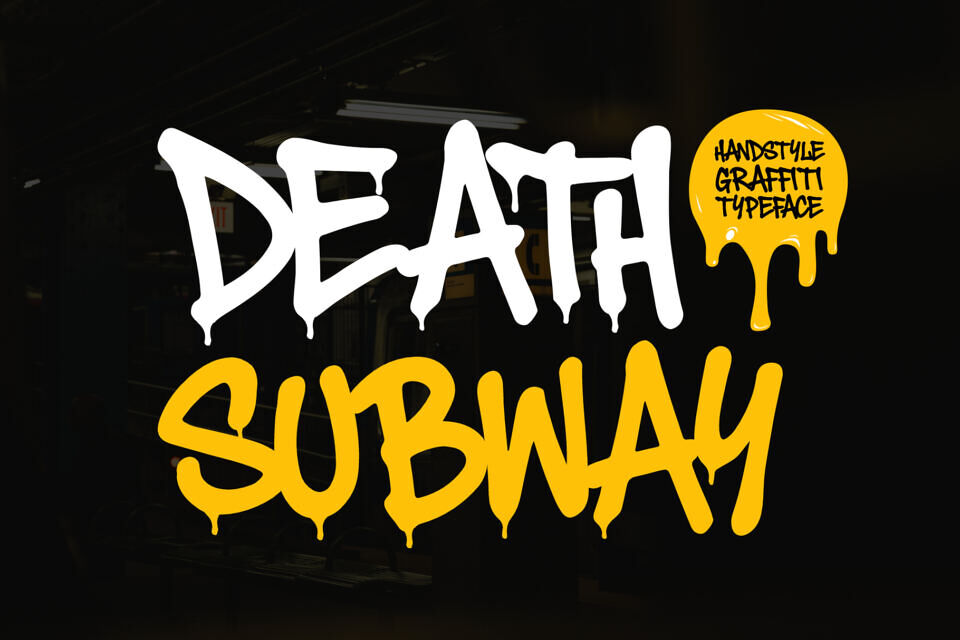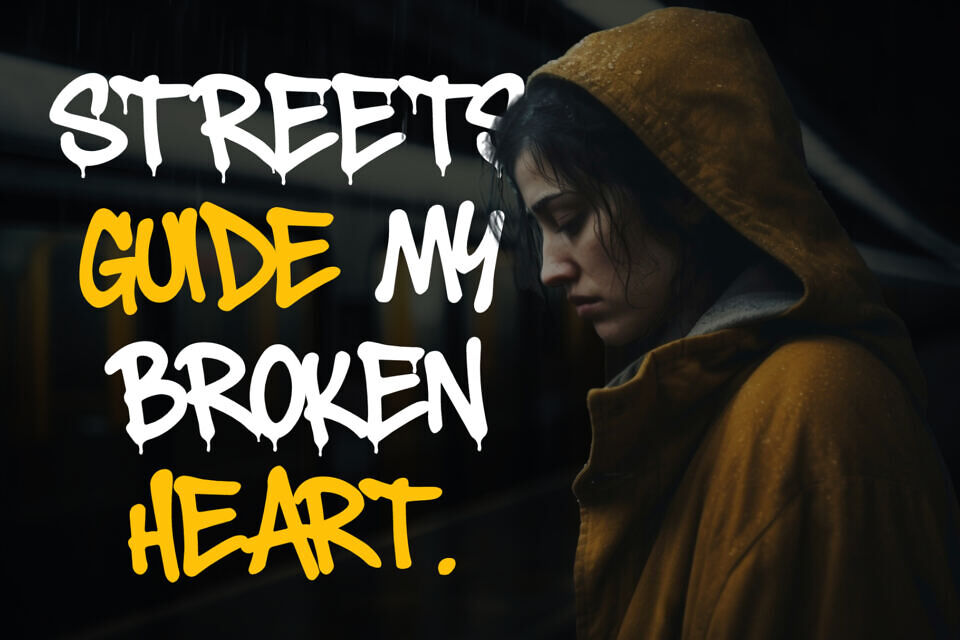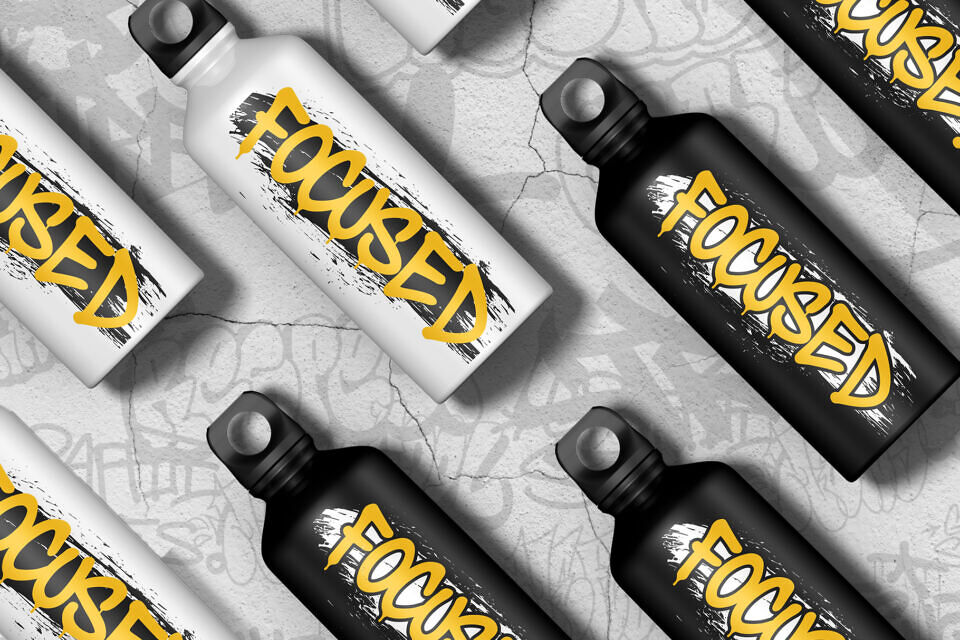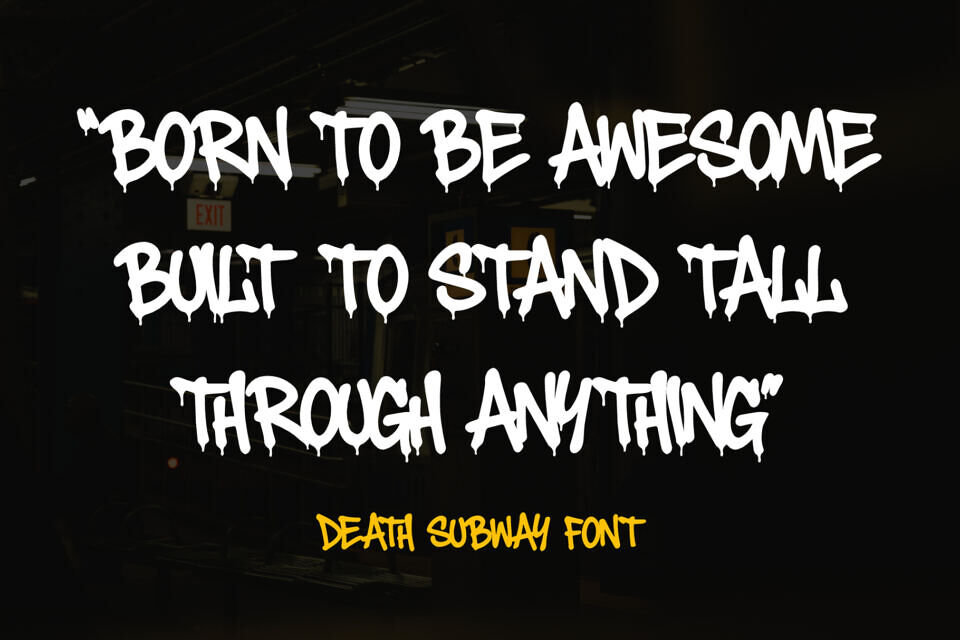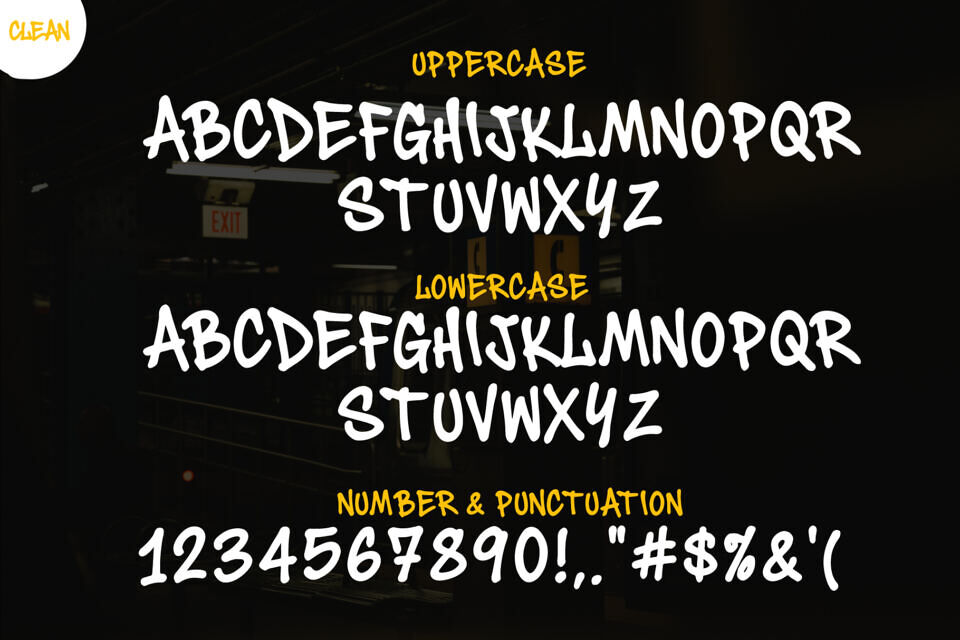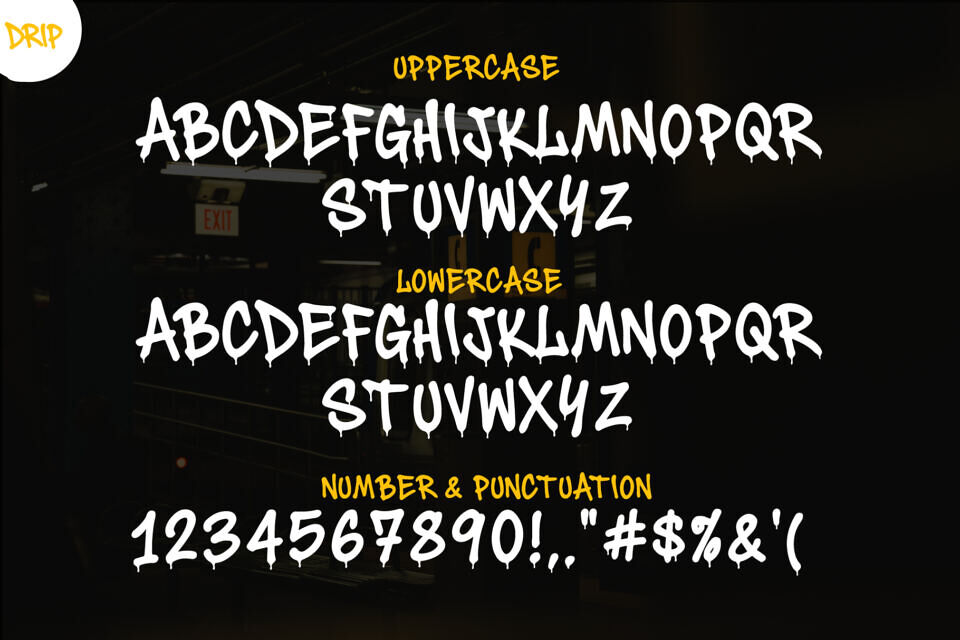
Experience the raw energy of authentic street culture with Death Subway, a bold graffiti drip font by Cikareotype Studio. Designed for creatives who value rebellion, edge, and artistic freedom, this font blends street realism with modern design versatility.
Featuring two styles — Raw & Clean, Death Subway adapts seamlessly to urban branding, streetwear designs, music covers, and digital merch. Its dripping texture and sharp uppercase structure bring true graffiti energy from subway walls to your screen. Perfect for streetwear logos, album art, posters, and merch, Death Subway delivers a fearless urban aesthetic in every project.